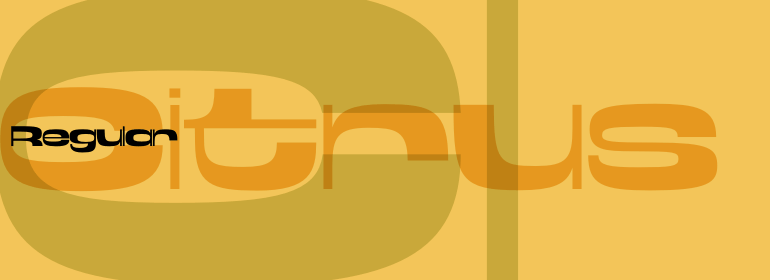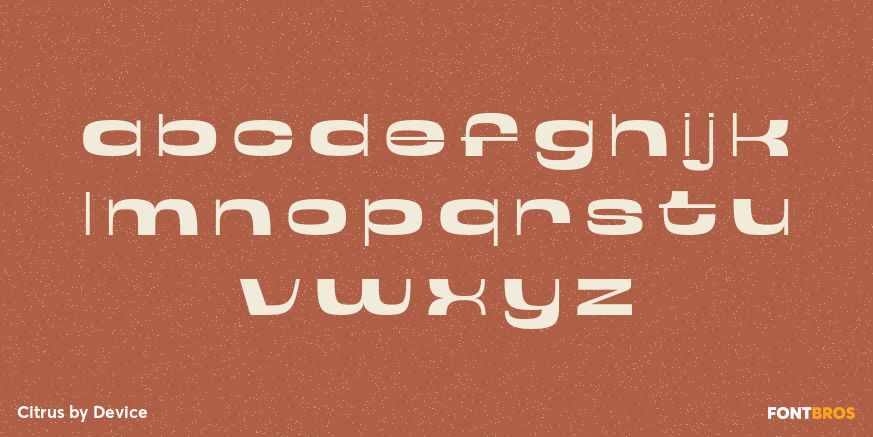
Citrus
Font Family by Device
Citrus is a playful display font with a distinctly retro spirit, drawing on 1960s and 1970s design cues for a groovy, offbeat look. Its fun, wacky personality gives layouts an instant throwback feel while still reading clearly enough to make a strong visual statement.
Offered as a single-style family by Device, this face is well suited to posters, packaging, branding, apparel graphics, and other display work that calls for bold character and a lighthearted mood. If you want lettering that feels expressive, nostalgic, and a little unexpected, this one brings plenty of attitude without overcomplicating the design.